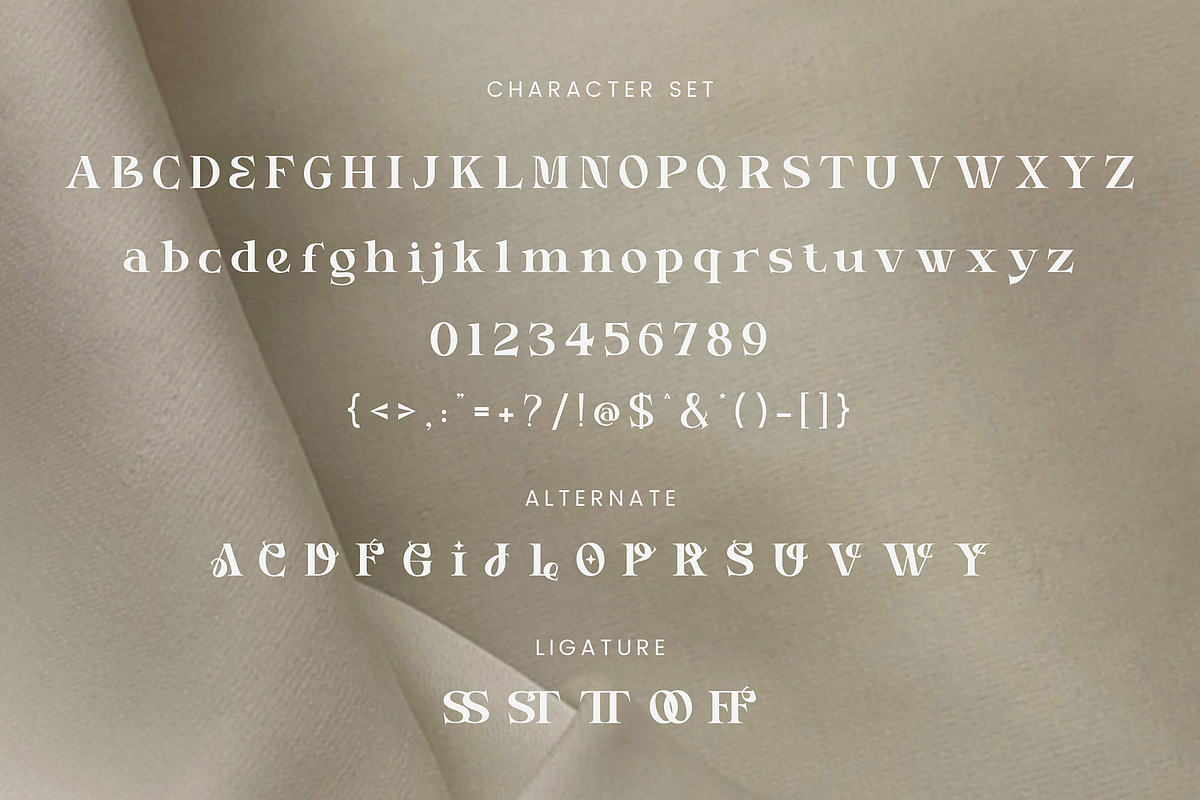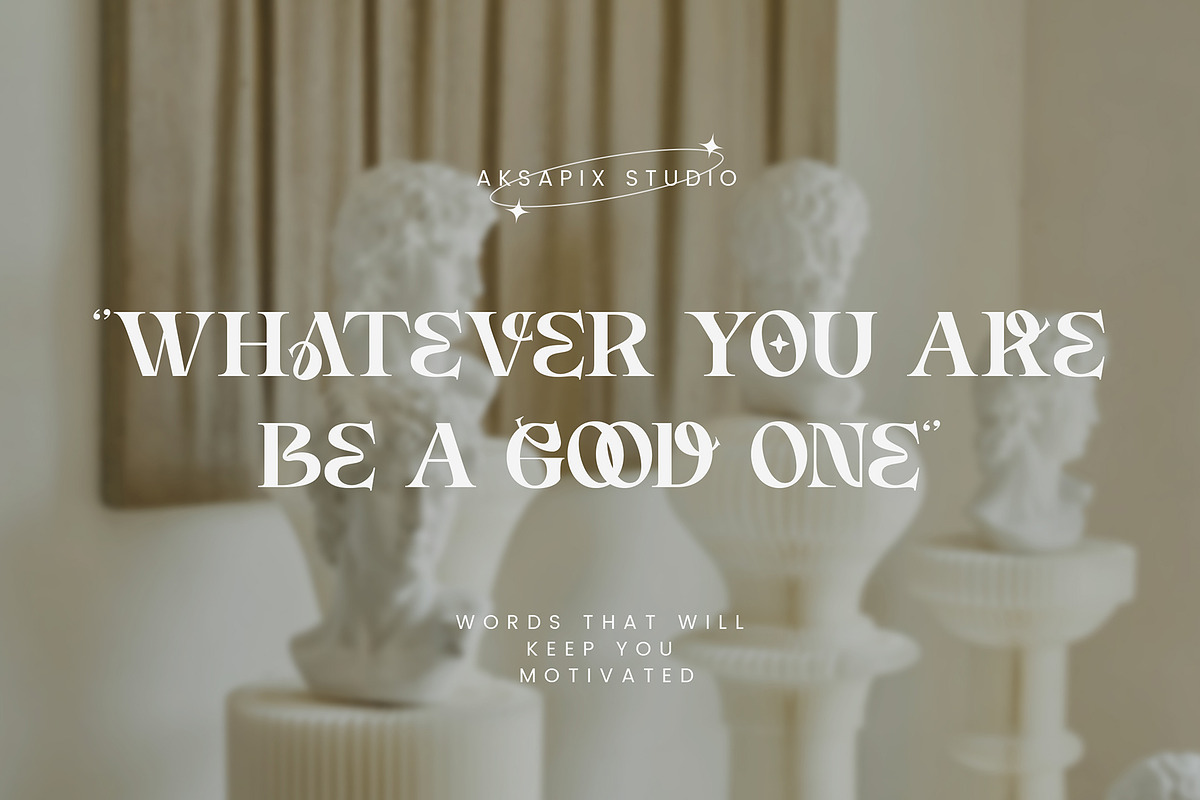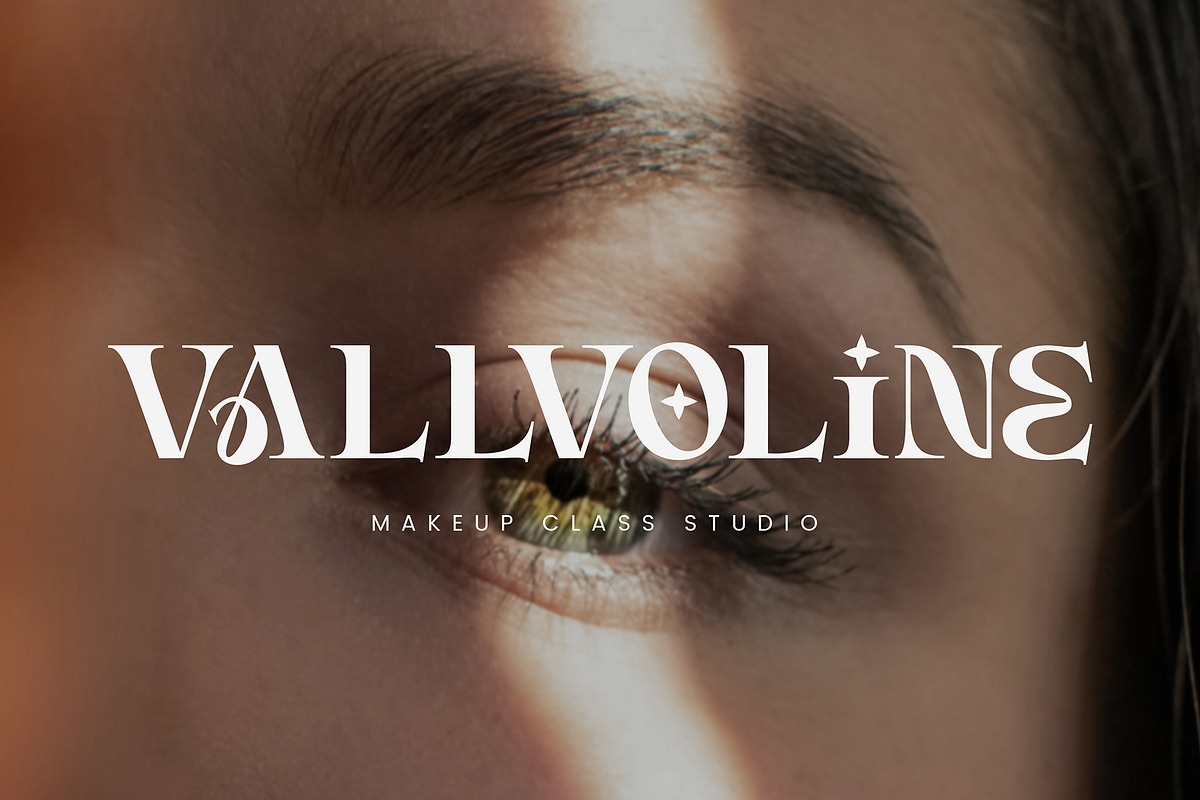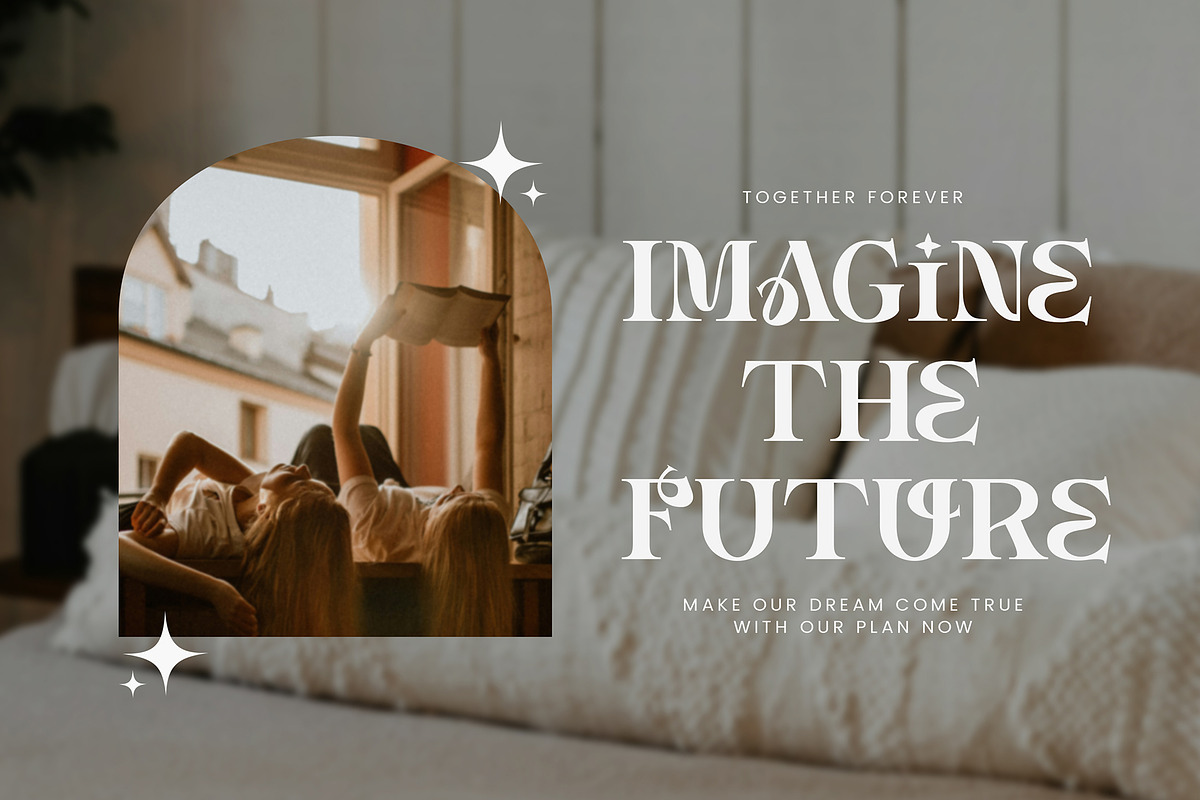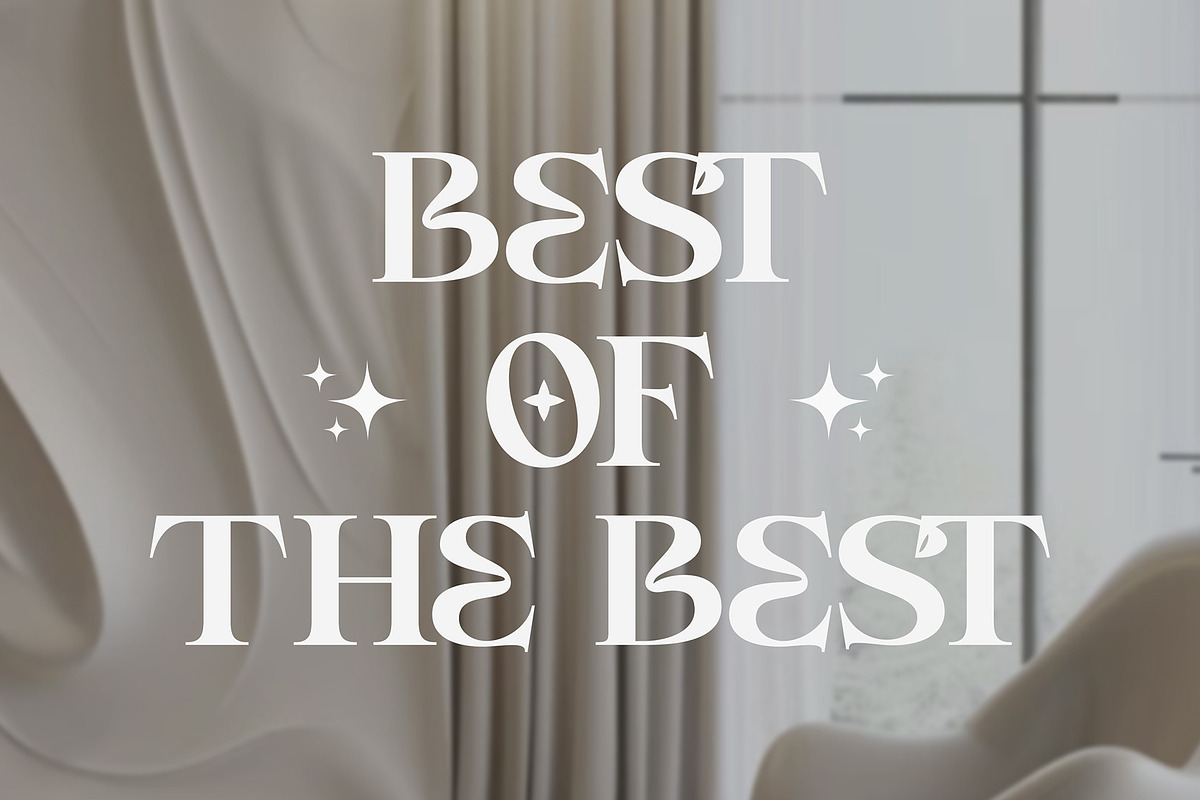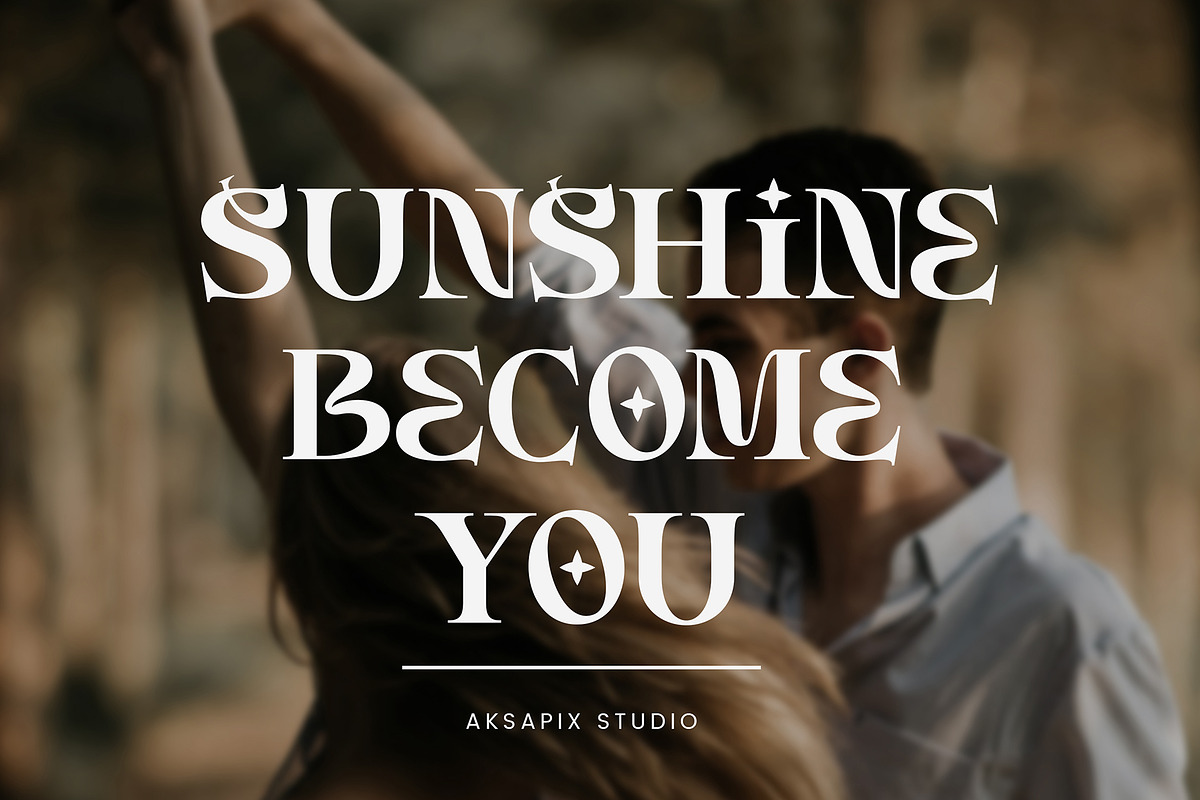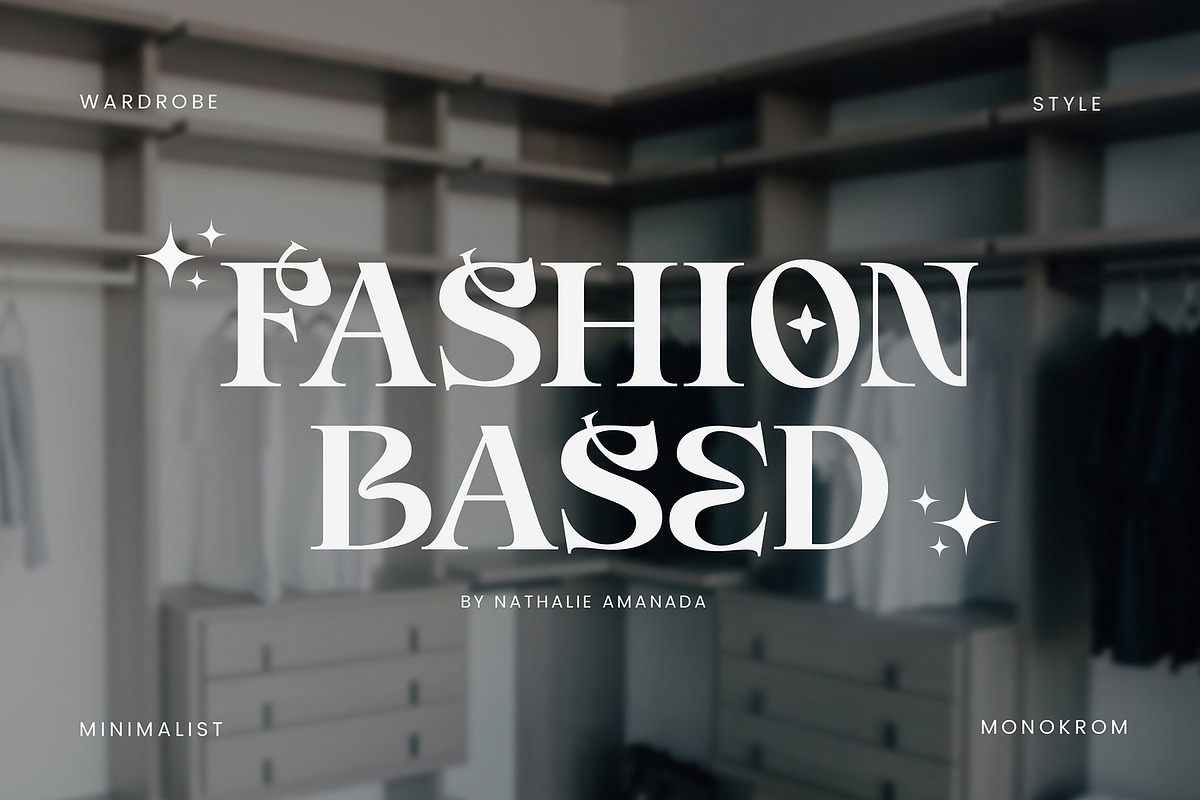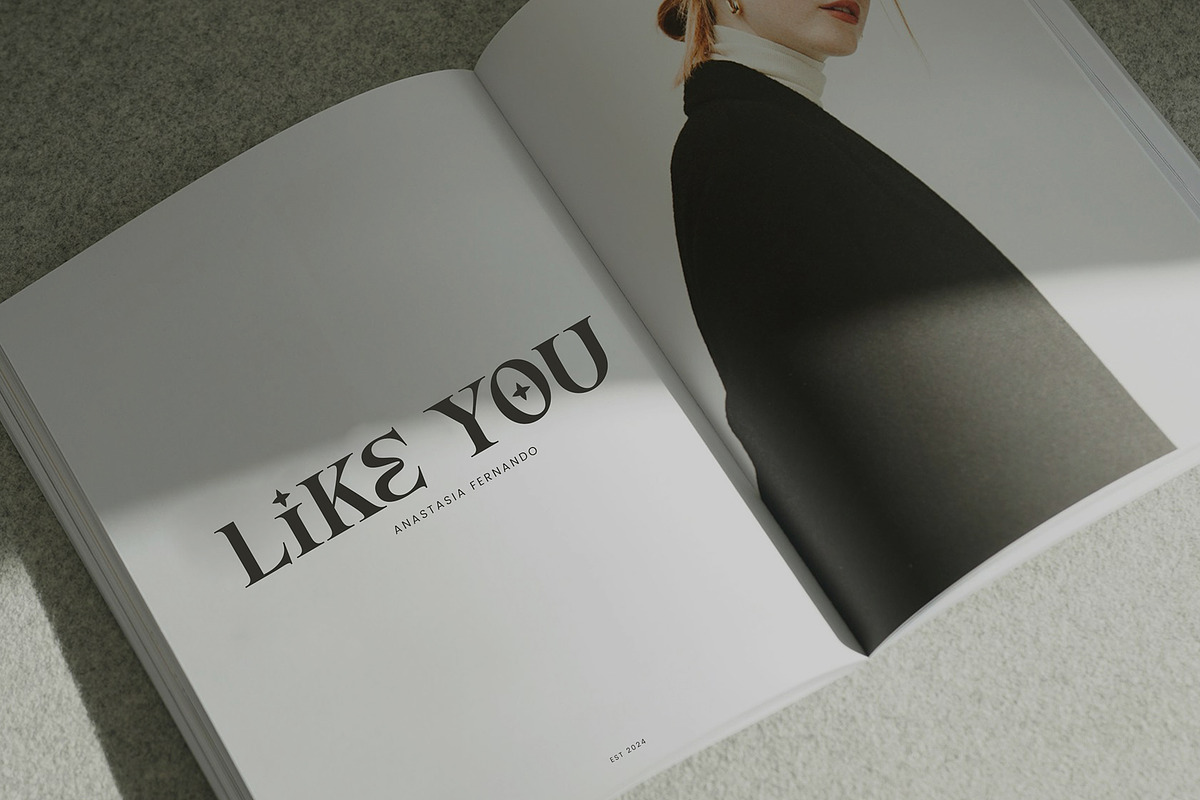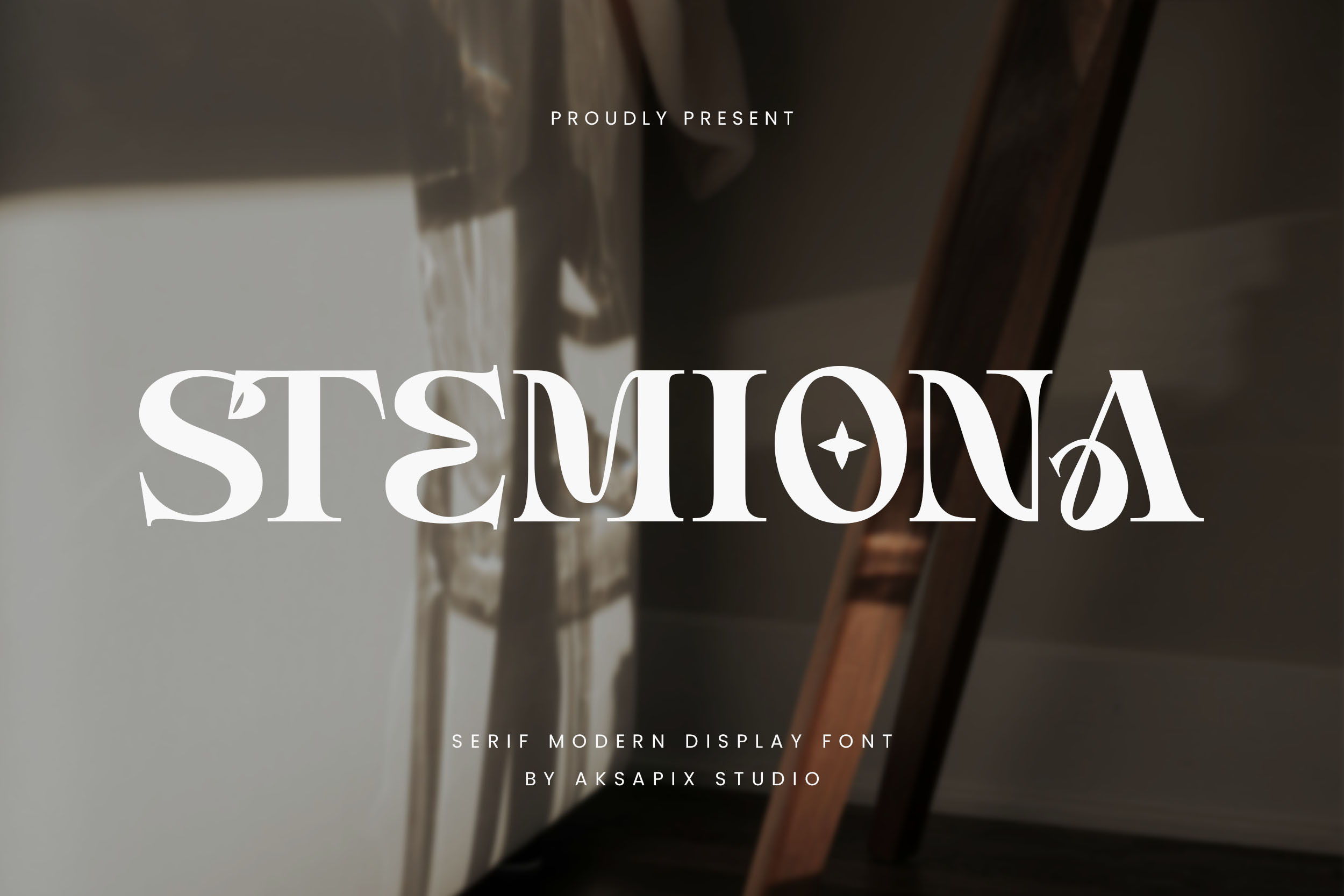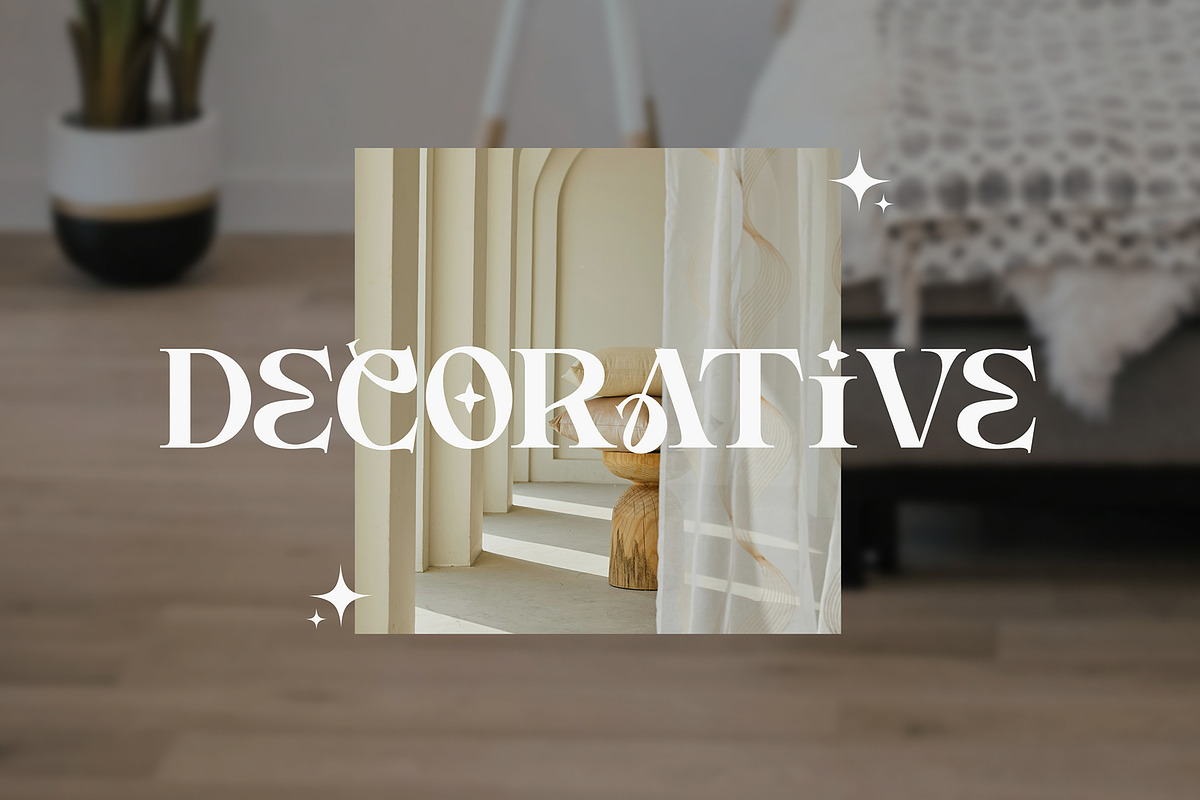
Stemiona - Modern Display Serif Font
Introducing Stemiona - Modern Display Serif Font, a sophisticated and stylish typeface designed for contemporary elegance. With its refined serifs and modern design, Stemiona is perfect for projects that demand a touch of class and distinction. This font includes stylistic alternate characters and offers multilingual support, making it versatile for various languages and design needs.
Punctuation & Numbers
Stylistic Alternates: Unique character variations to enhance your designs.
Modern Serif Design: Ideal for elegant and high-end design projects.
High-End Branding
Luxury Magazine Covers
Elegant Product Packaging
Fashion Advertisements
Stylish Website Headers
Elevate your design projects with Stemiona - Modern Display Serif Font. Whether you’re creating luxury branding, sophisticated magazine covers, or elegant product packaging, Stemiona brings a touch of modern sophistication to your work.